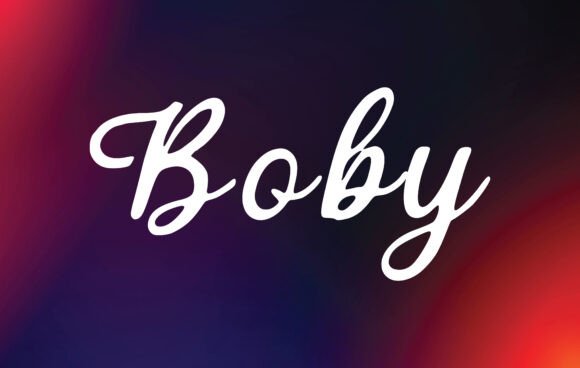
Boby Font: Elevate Your Creative Ideas with this Lovely Handwritten Font
In the world of typography, a good font can make all the difference in taking your creative ideas to the next level. One such font that has gained popularity among designers and artists is the Boby Font. This beautiful handwritten font has the potential to add a touch of elegance and sophistication to your designs, making it the perfect choice for creating eye-catching logos, branding, and quotes.
What Makes Boby Font Special?
Boby Font is a unique and lovely handwritten font that boasts a range of features that set it apart from other fonts. Some of its key features include:
- Handwritten style: Boby Font has a beautiful handwritten style that adds a personal touch to your designs.
- Elegant and sophisticated: The font’s elegant and sophisticated design makes it perfect for creating high-end branding and logos.
- Versatile: Boby Font is versatile and can be used for a range of design projects, from logos and branding to quotes and social media graphics.
- Easy to read: Despite its elegant design, Boby Font is easy to read, making it perfect for use in body text as well as headlines.
Uses of Boby Font
Boby Font is a versatile font that can be used for a range of design projects. Some of the most popular uses of Boby Font include:
- Logo design: Boby Font is perfect for creating eye-catching logos that are both elegant and sophisticated.
- Branding: The font’s elegant design makes it perfect for use in branding projects, from business cards to letterheads.
- Quotes and social media graphics: Boby Font is also perfect for creating quotes and social media graphics that are both visually appealing and easy to read.
- Packaging design: The font’s versatile design makes it perfect for use in packaging design, from labels to product packaging.
Benefits of Using Boby Font
There are many benefits to using Boby Font in your design projects. Some of the most significant benefits include:
- Increased creativity: Boby Font’s unique and elegant design can help to increase your creativity and inspire new ideas.
- Professional look: The font’s sophisticated design gives your designs a professional look that is sure to impress.
Tips for Using Boby Font
To get the most out of Boby Font, here are a few tips to keep in mind:
- Use it sparingly: While Boby Font is a beautiful font, it can be overwhelming if used too much. Use it sparingly to add a touch of elegance to your designs.
- Experiment with different sizes: Boby Font looks great in a range of sizes, from small body text to large headlines. Experiment with different sizes to find the one that works best for your design.
- Pair it with other fonts: Boby Font pairs well with a range of other fonts, from sans-serif fonts to serif fonts. Experiment with different pairings to find the one that works best for your design.
In conclusion, Boby Font is a beautiful and elegant handwritten font that has the potential to take your creative ideas to the highest level. Its versatile design makes it perfect for use in a range of design projects, from logos and branding to quotes and social media graphics. With its easy-to-use design and compatibility with a range of design software, Boby Font is a great choice for designers and artists looking to add a touch of sophistication to their designs.